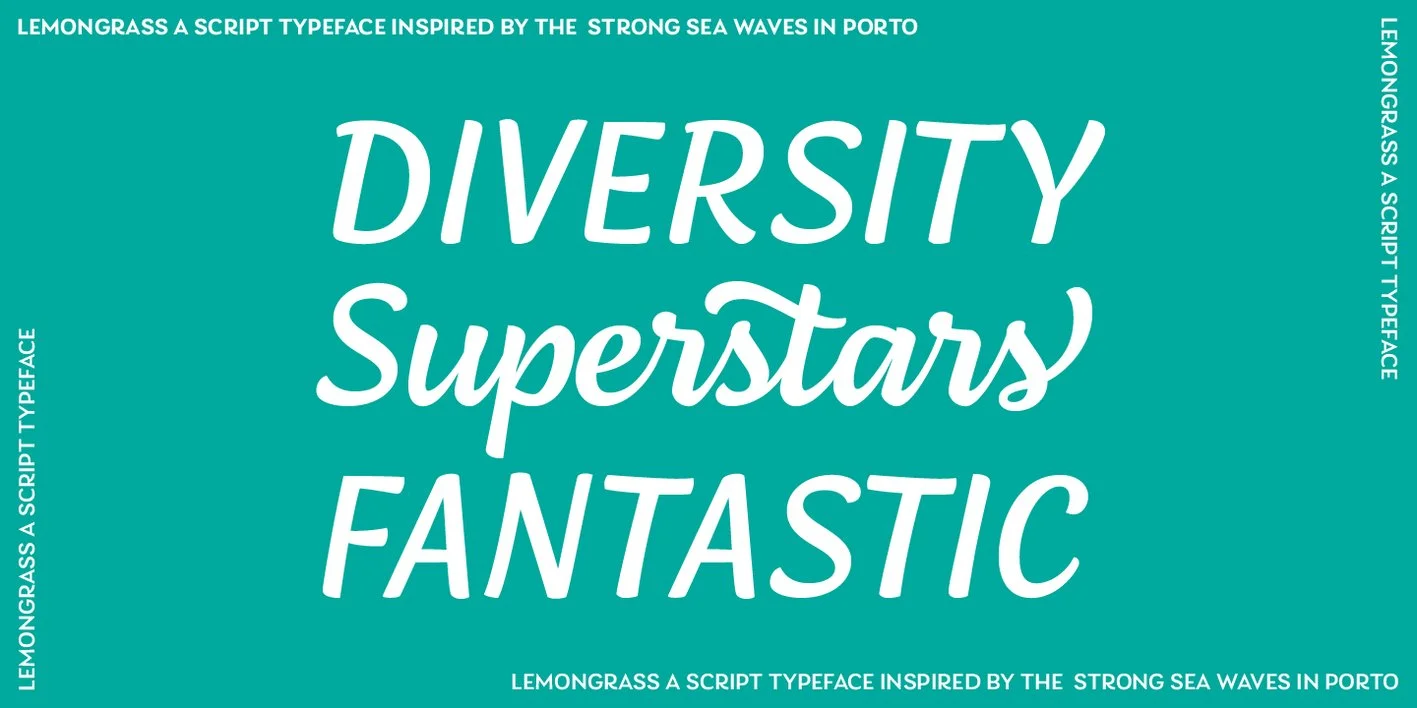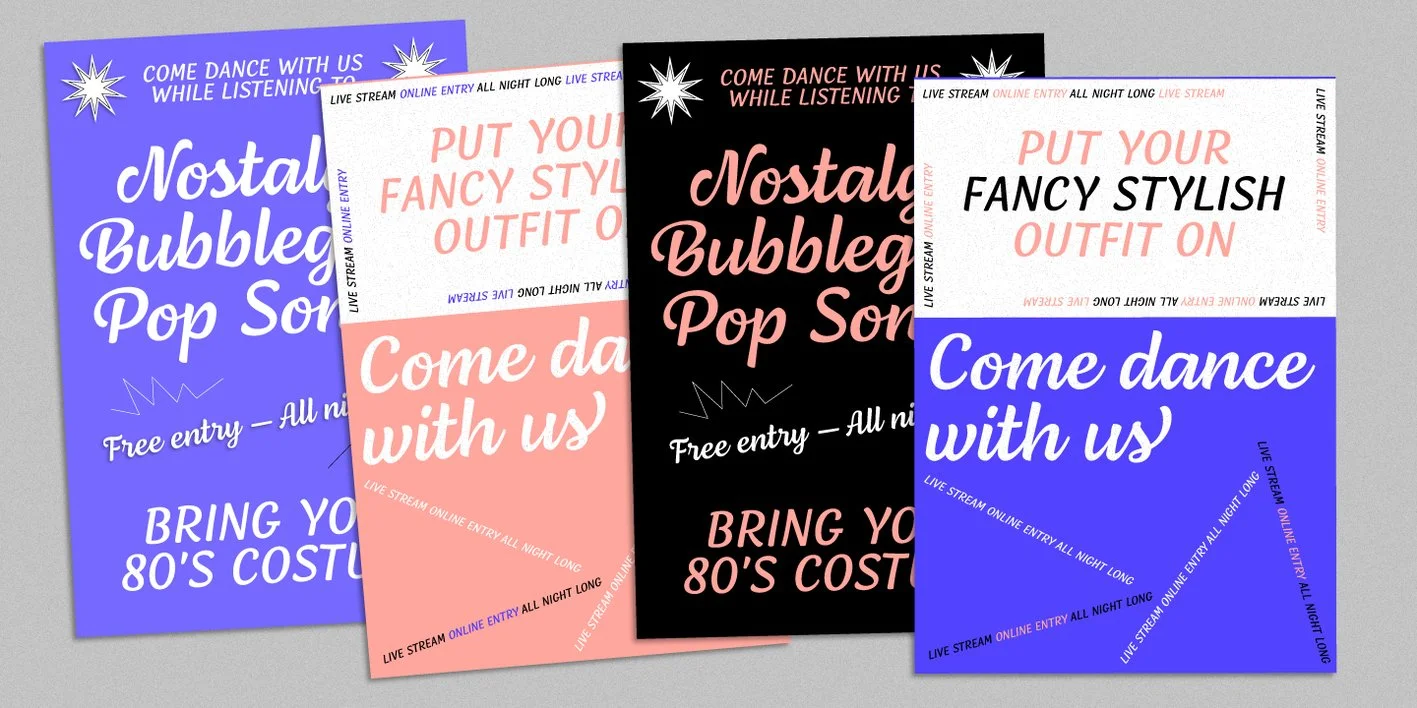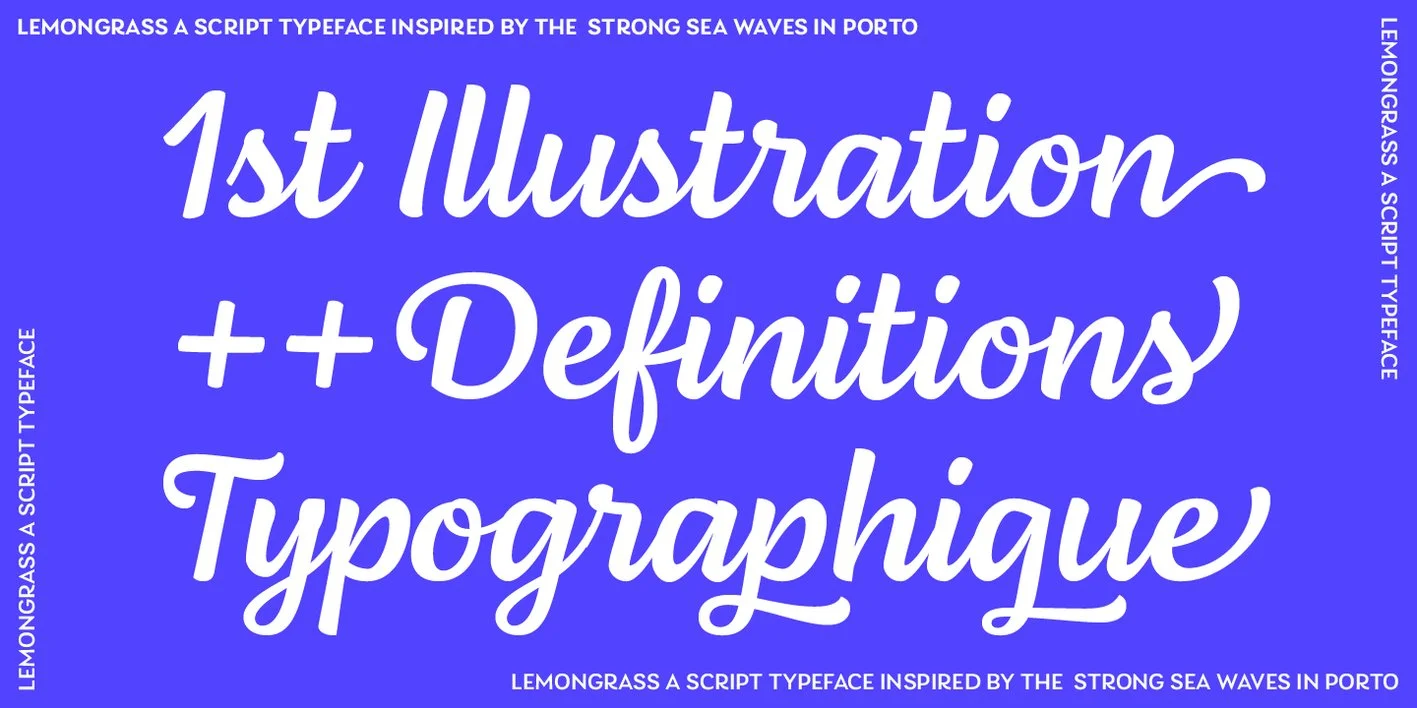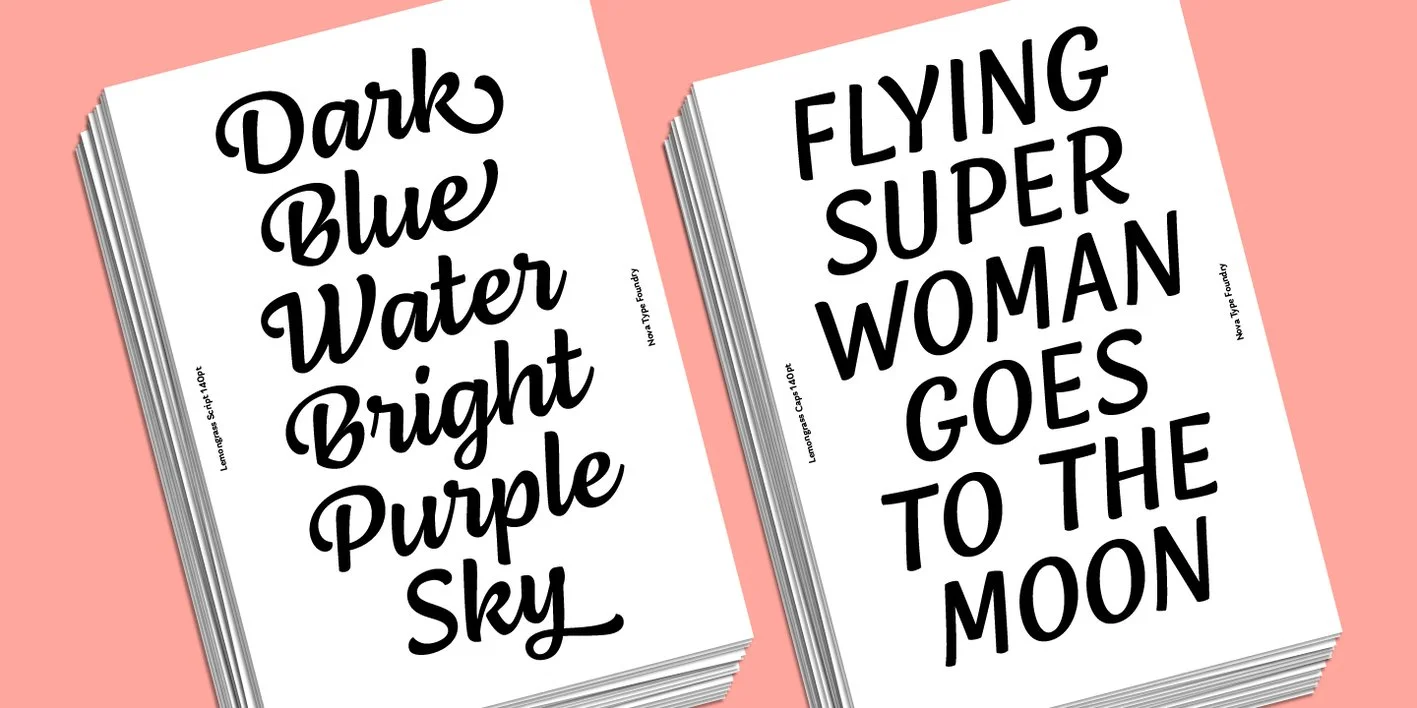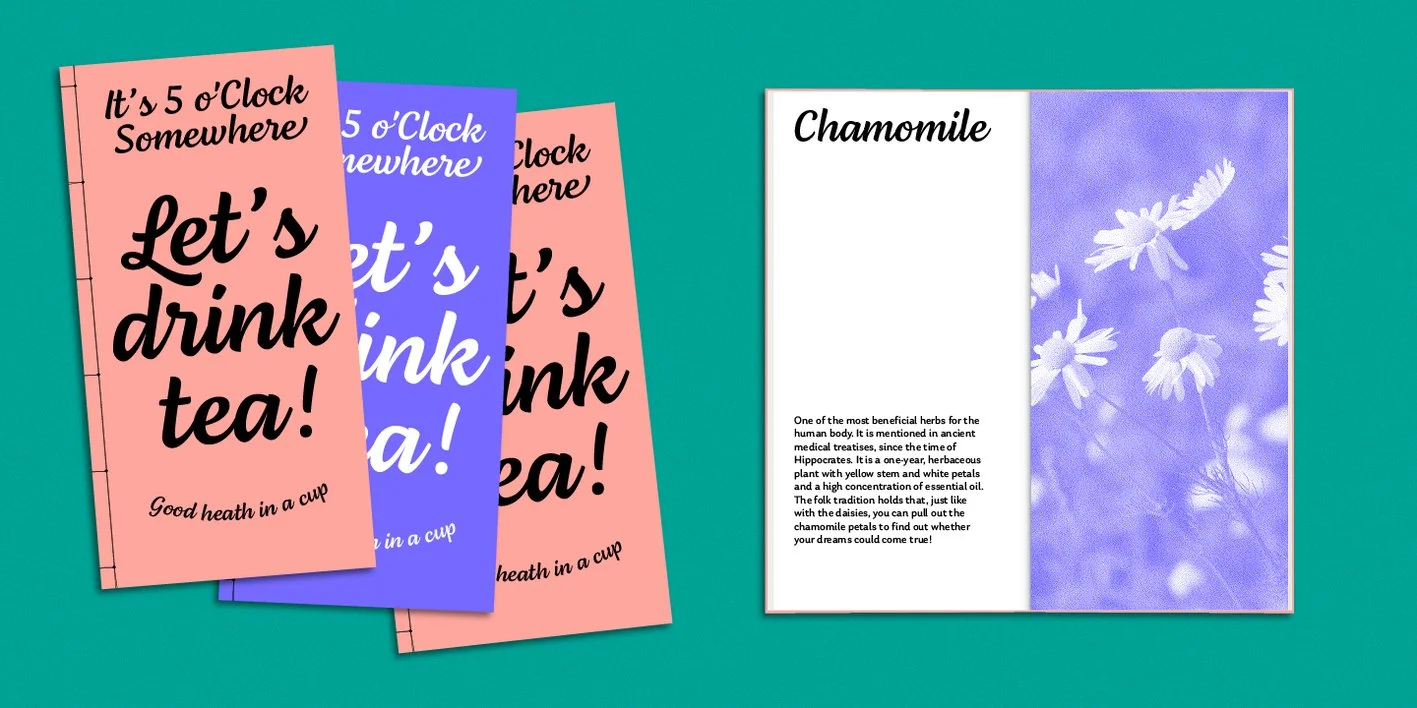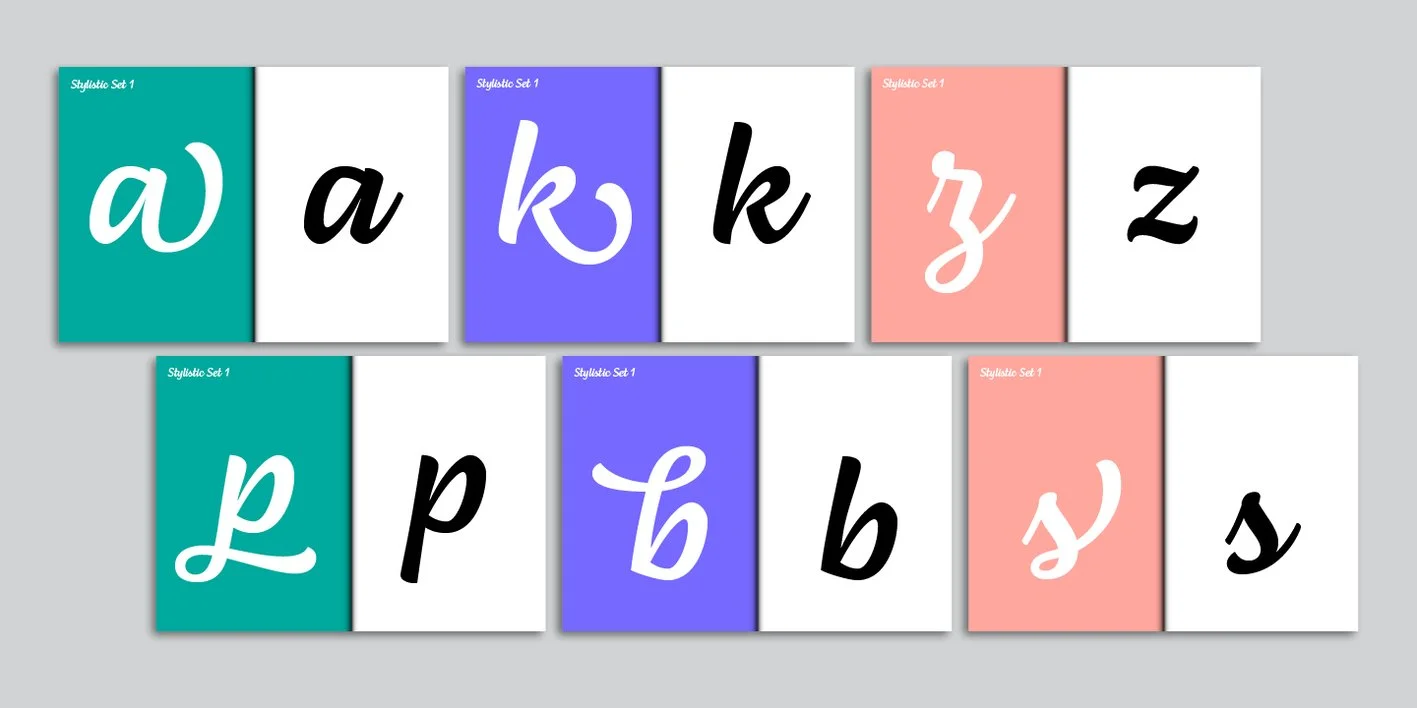
Lemongrass Font
Few typefaces manage to balance strong typographic hierarchy support with genuine day-to-day practicality. Lemongrass is one of them. The typeface brings a versatile sensibility to a broad range of creative disciplines, with the kind of restraint that lets content lead that holds up whether the work is print-first or screen-first.
In practice, Lemongrass proves particularly effective for packaging design, logo design, annual reports, editorial layouts, signage systems. Designers reaching for it find that the type decisions feel resolved rather than laboured — a useful quality when client timelines are tight.
The range of applications extends to brand identity systems, advertising campaigns, web design, social media graphics. That breadth is deliberate: the proportions and spacing were stress-tested across a wide range of mock briefs before the typeface was finalised.
Motion designers building title sequences and lower thirds find Lemongrass a reliable choice for projects that demand both personality and restraint. The design avoids the self-conscious quirkiness that dates quickly, settling instead for considered distinctiveness that holds up over time.